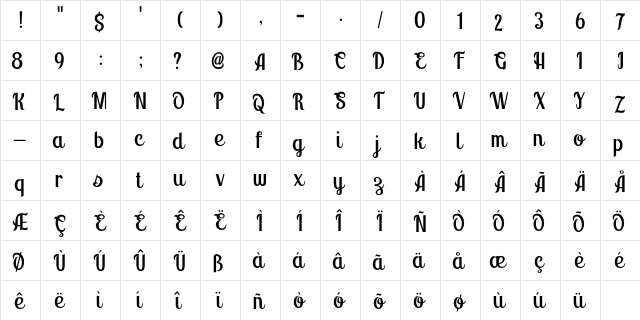
Montello DEMO Regular
| Foundry | David Kerkhoff |
| Designer | David Kerkhoff |
Design Context for Montello DEMO Typeface
Montello DEMO is a composed and adaptable typeface that performs quietly and consistently across a wide range of design contexts.